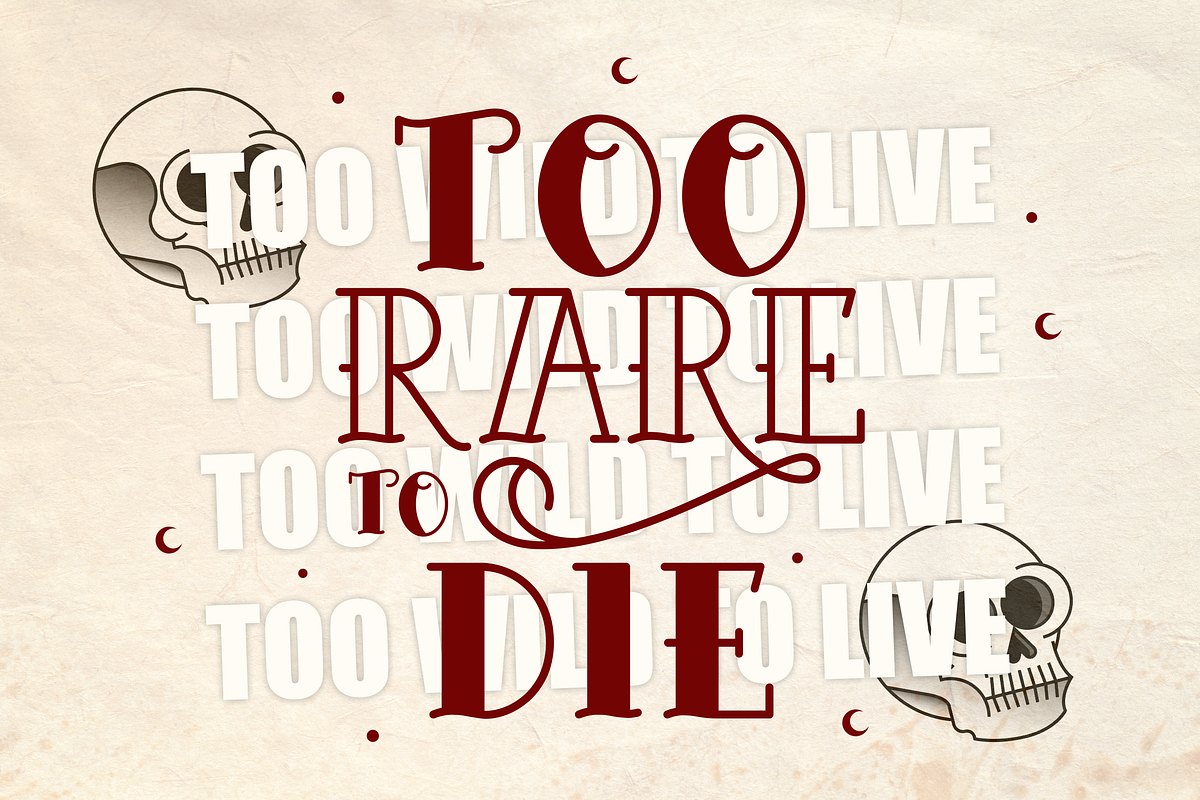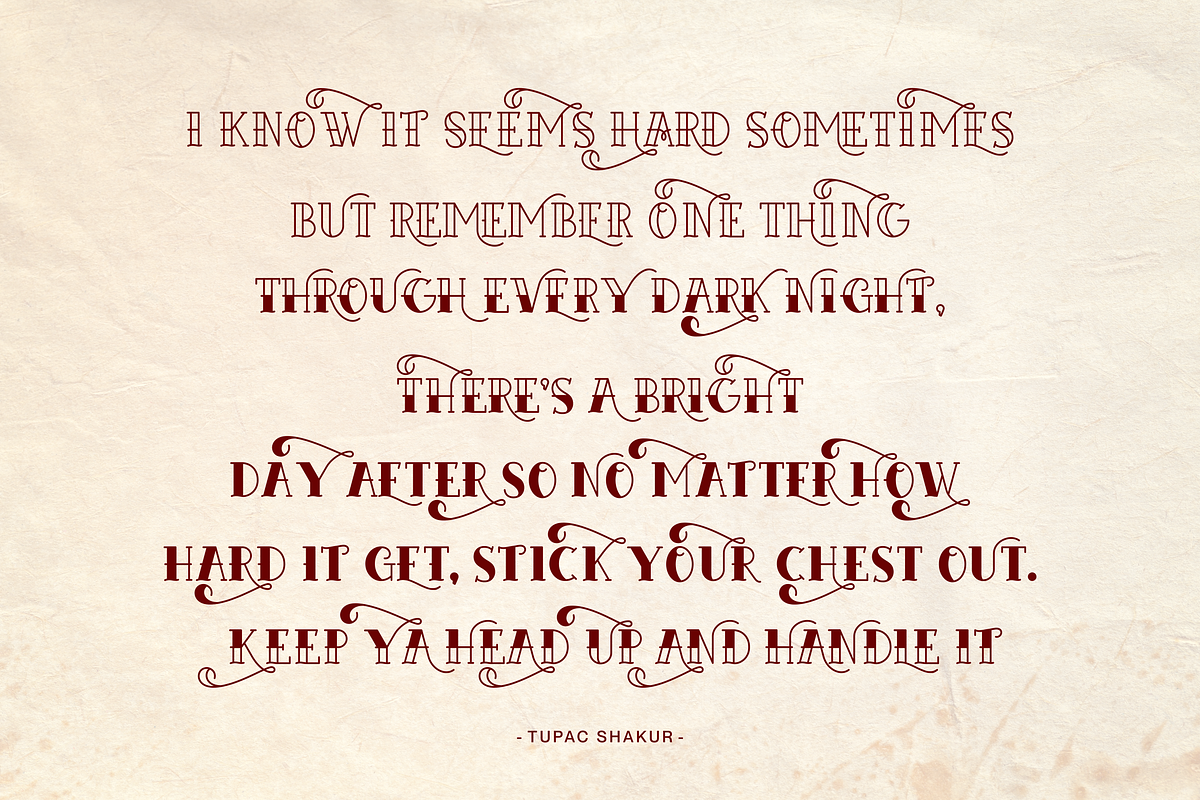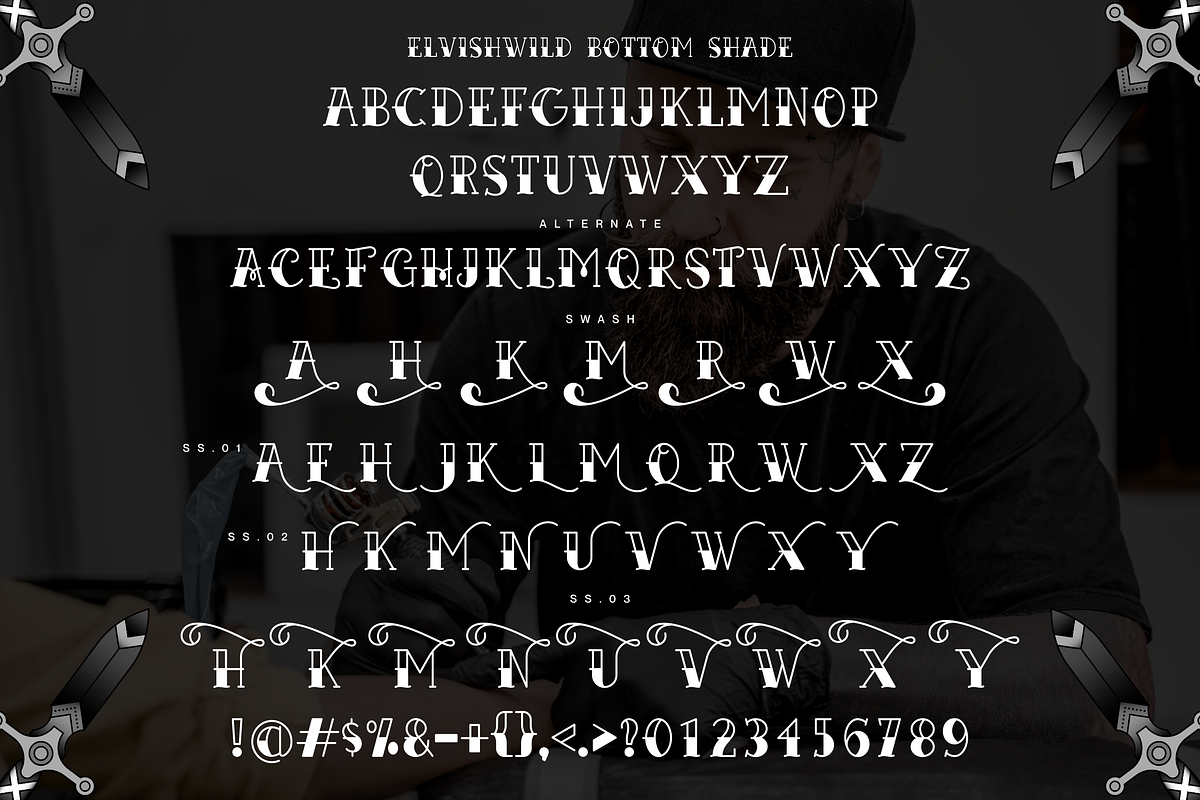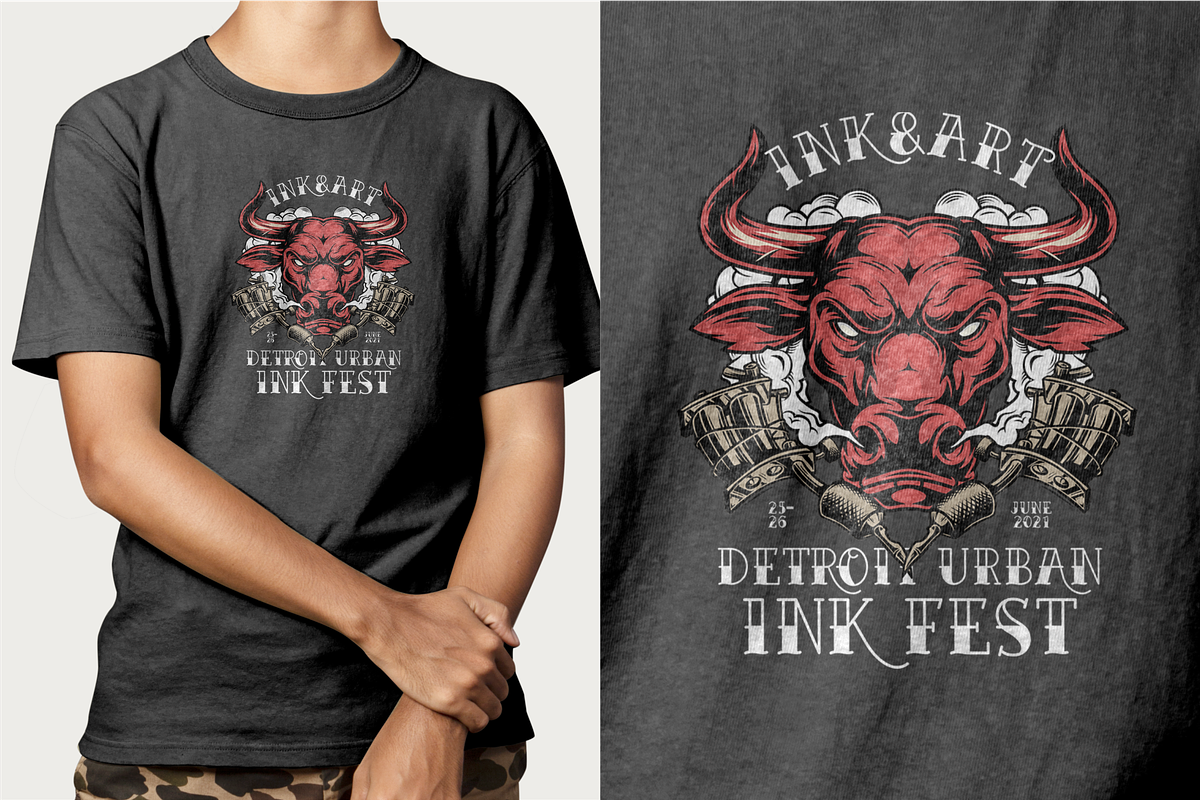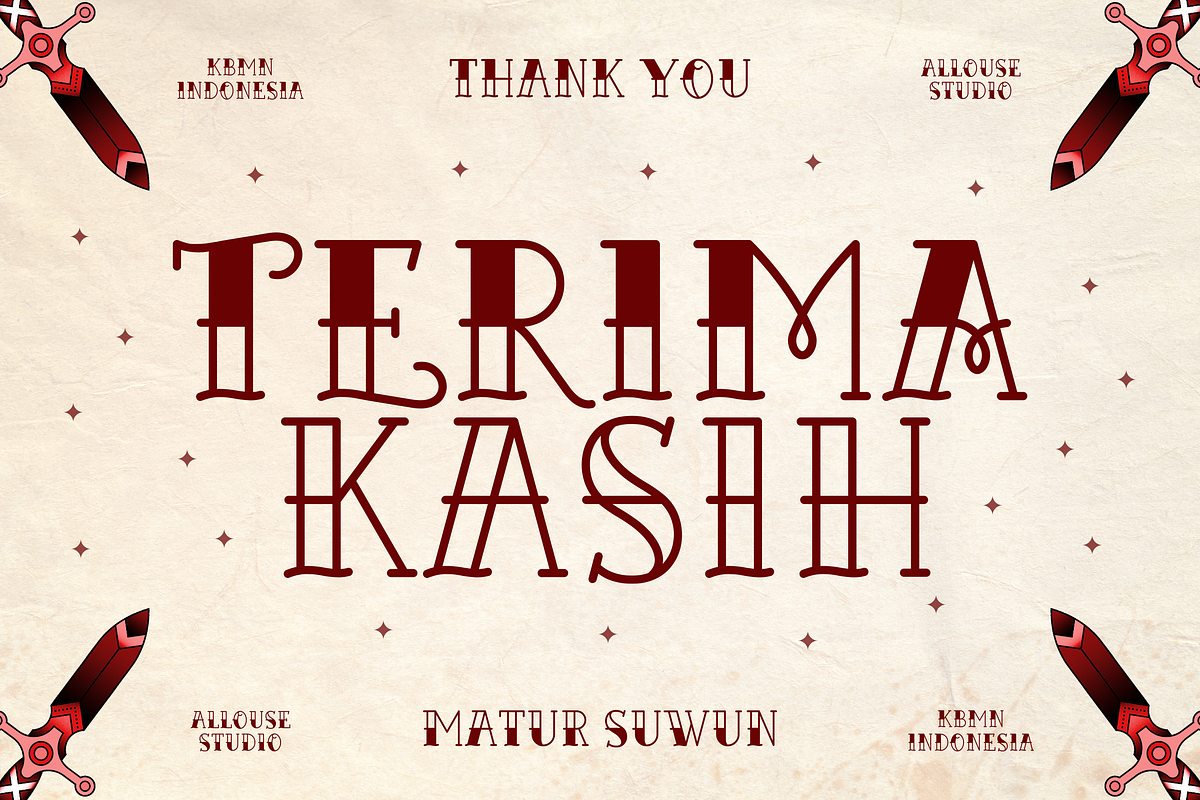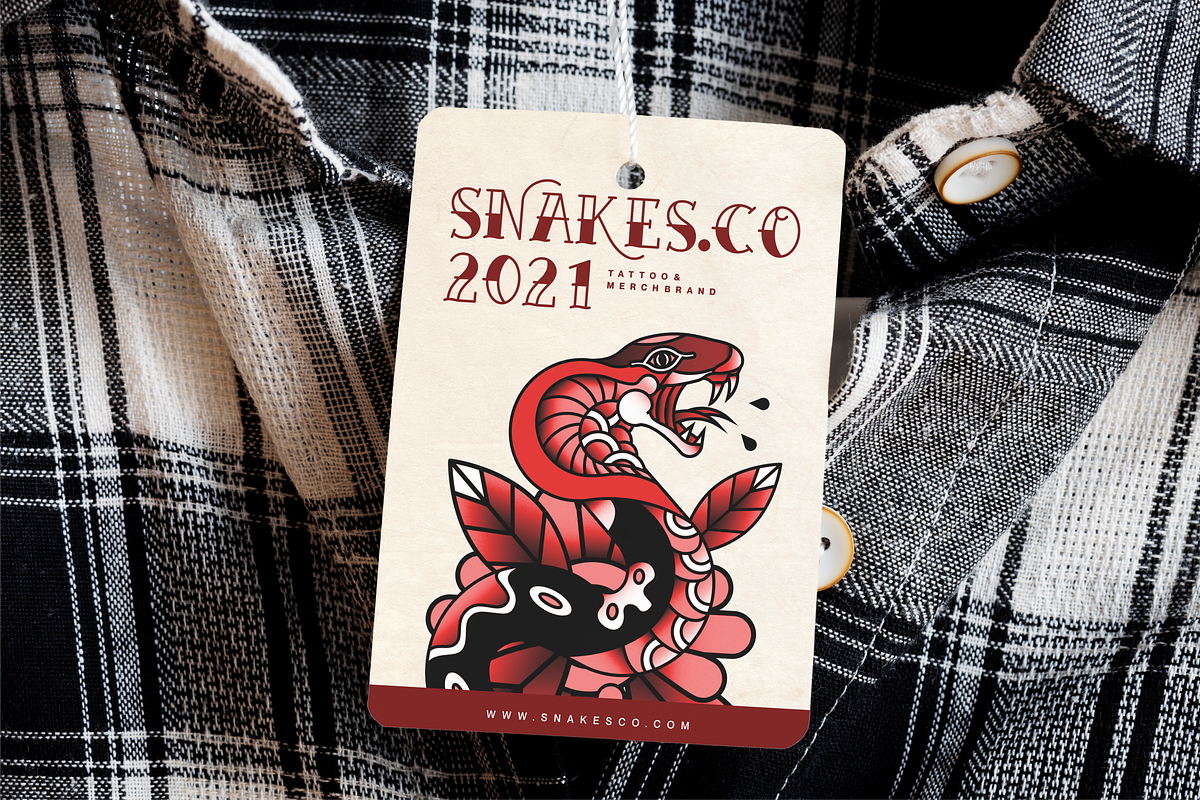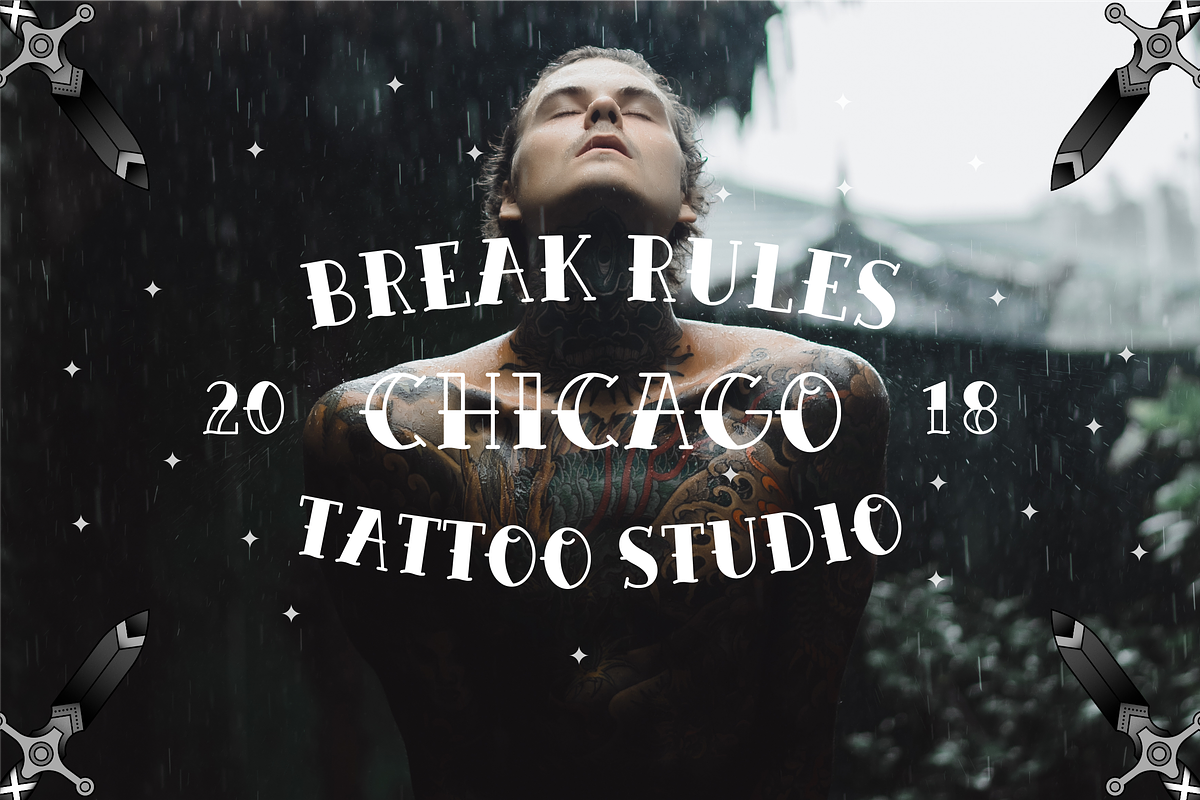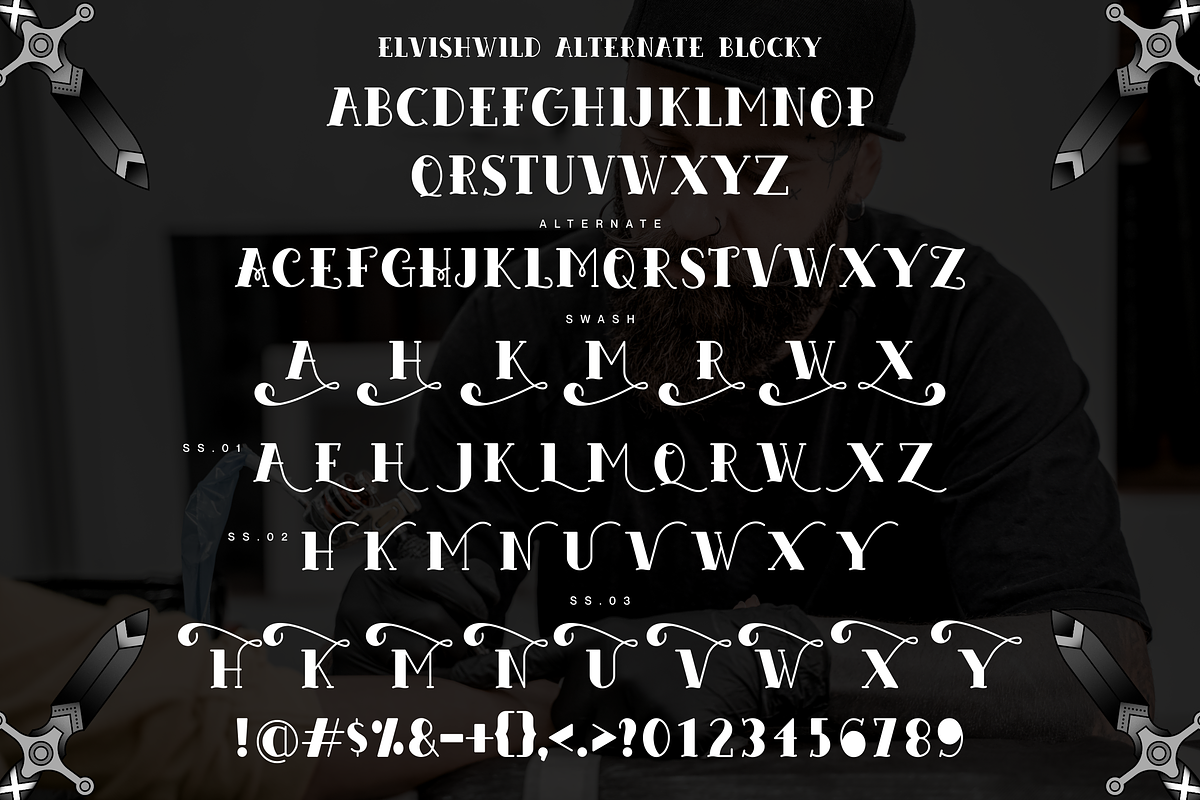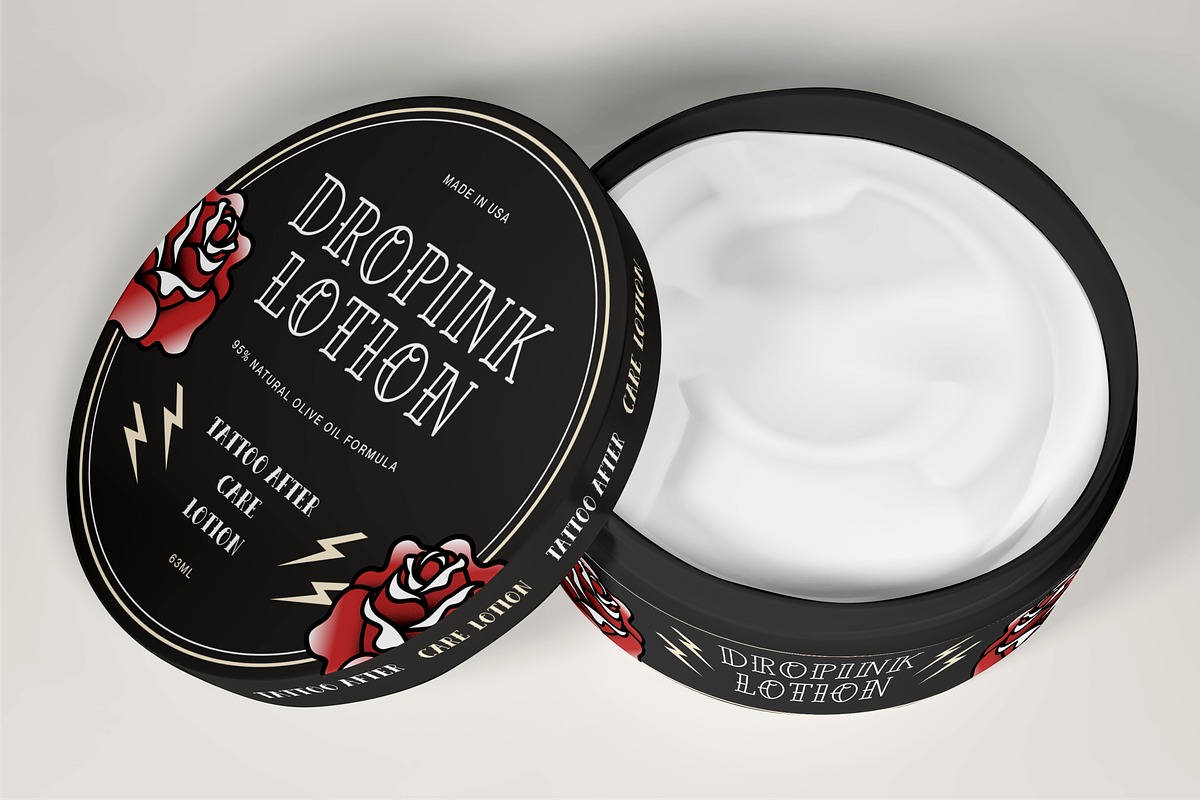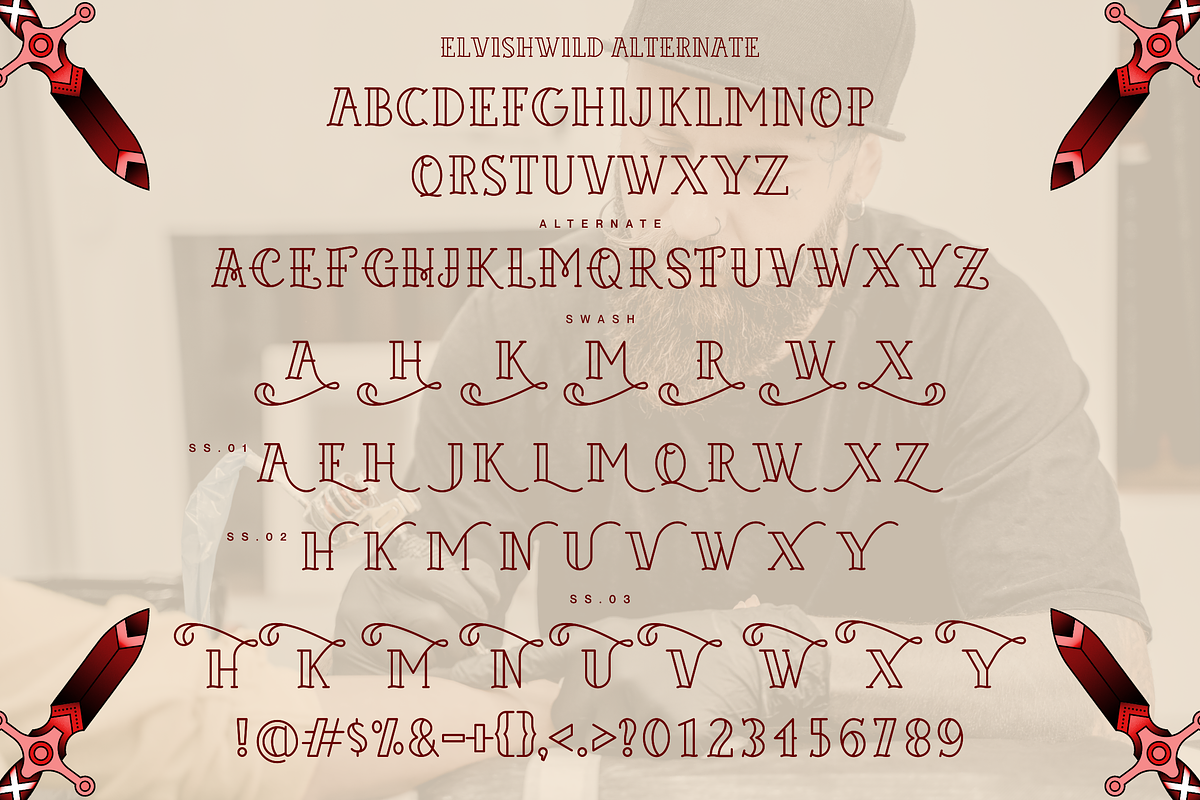
Elvishwild Font
Proudly Present, Elvishwild.
Elvishwild is a Traditional Tattoo Typeface with 6 styles
Elvishwild is perfect for product packaging, branding project, megazine, social media, wedding, or just used to express words above the background.